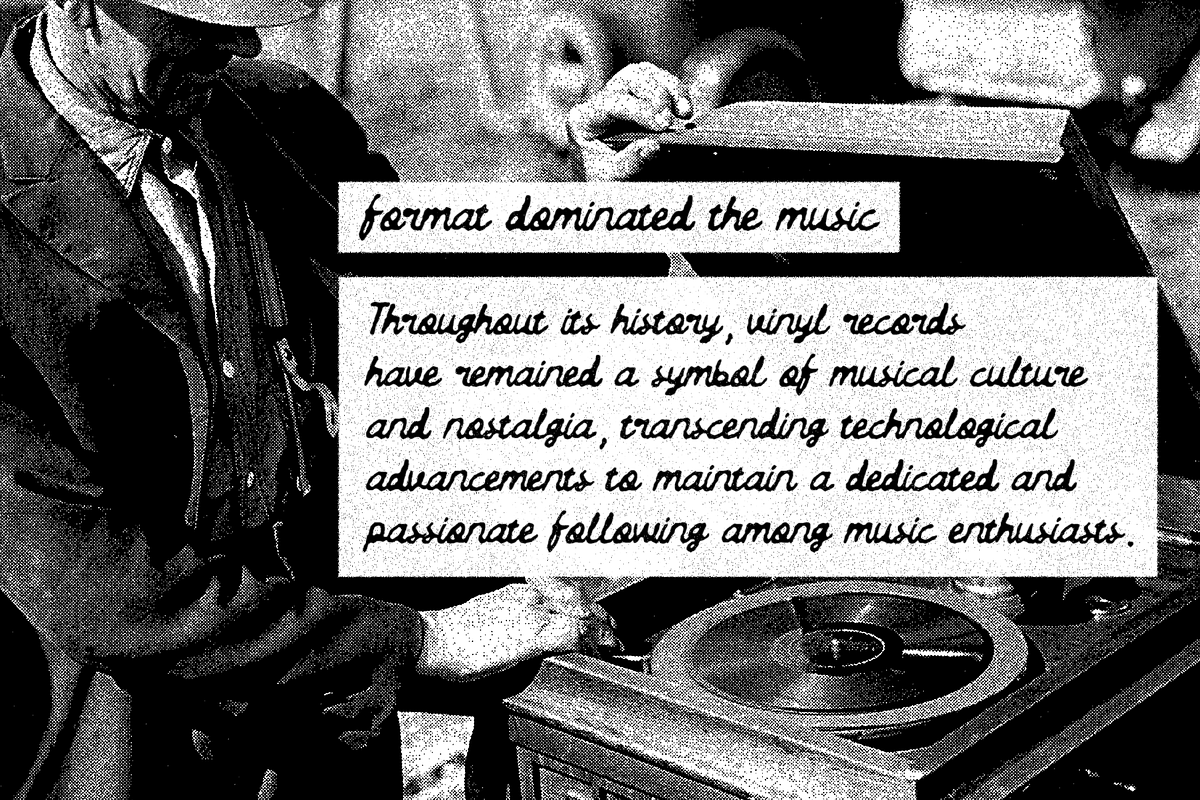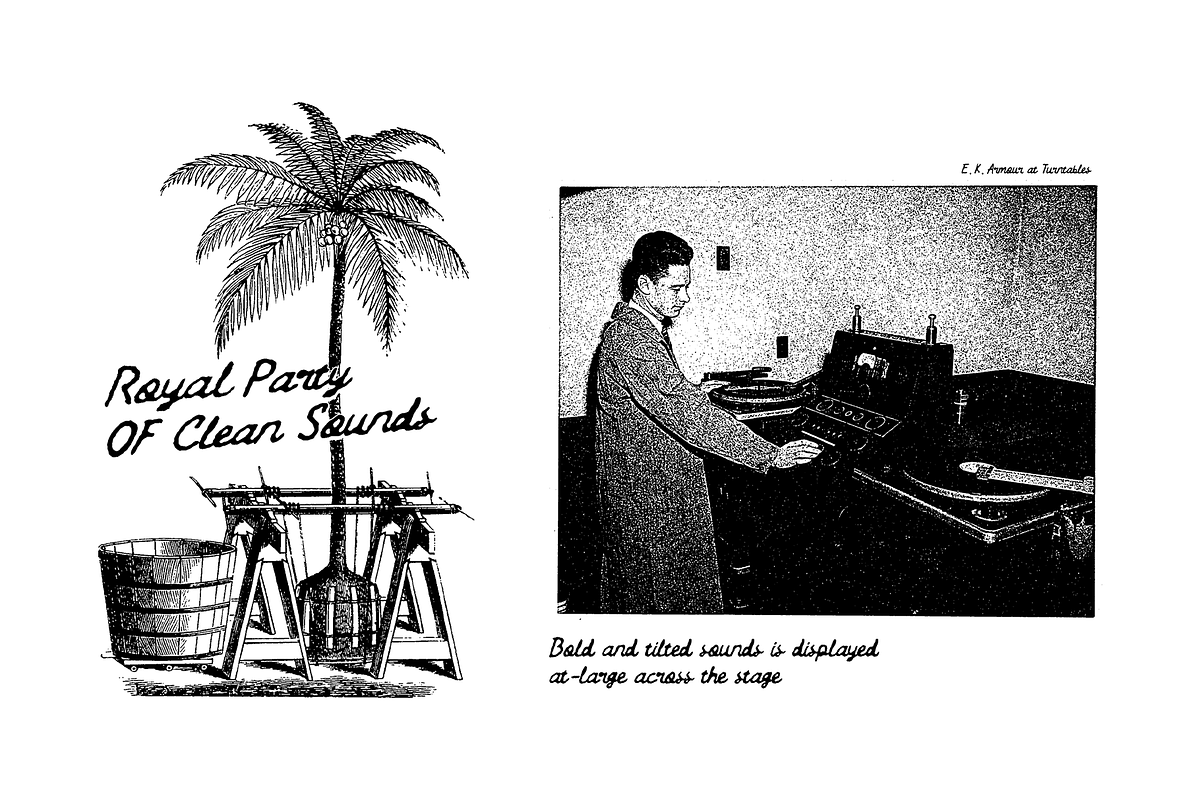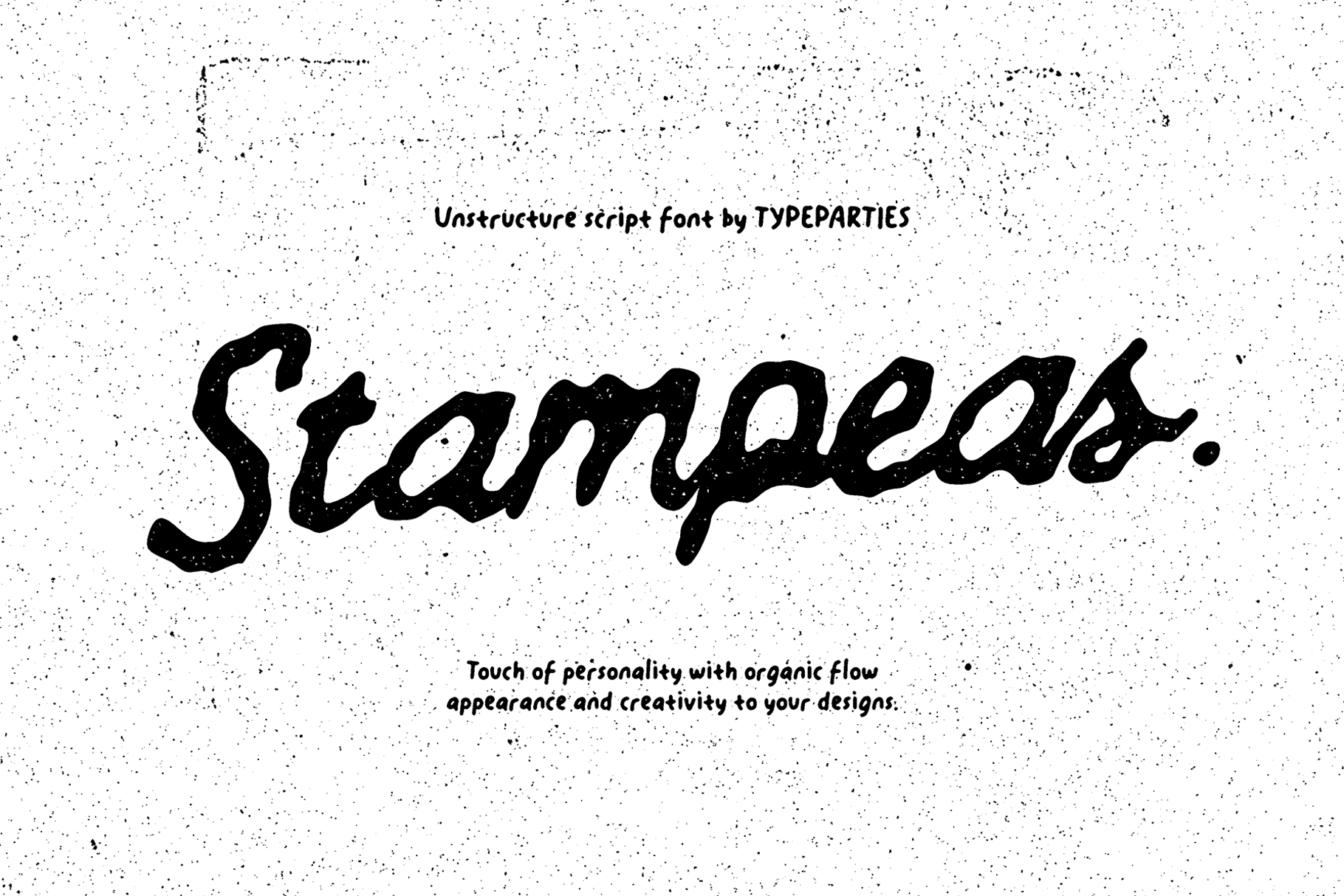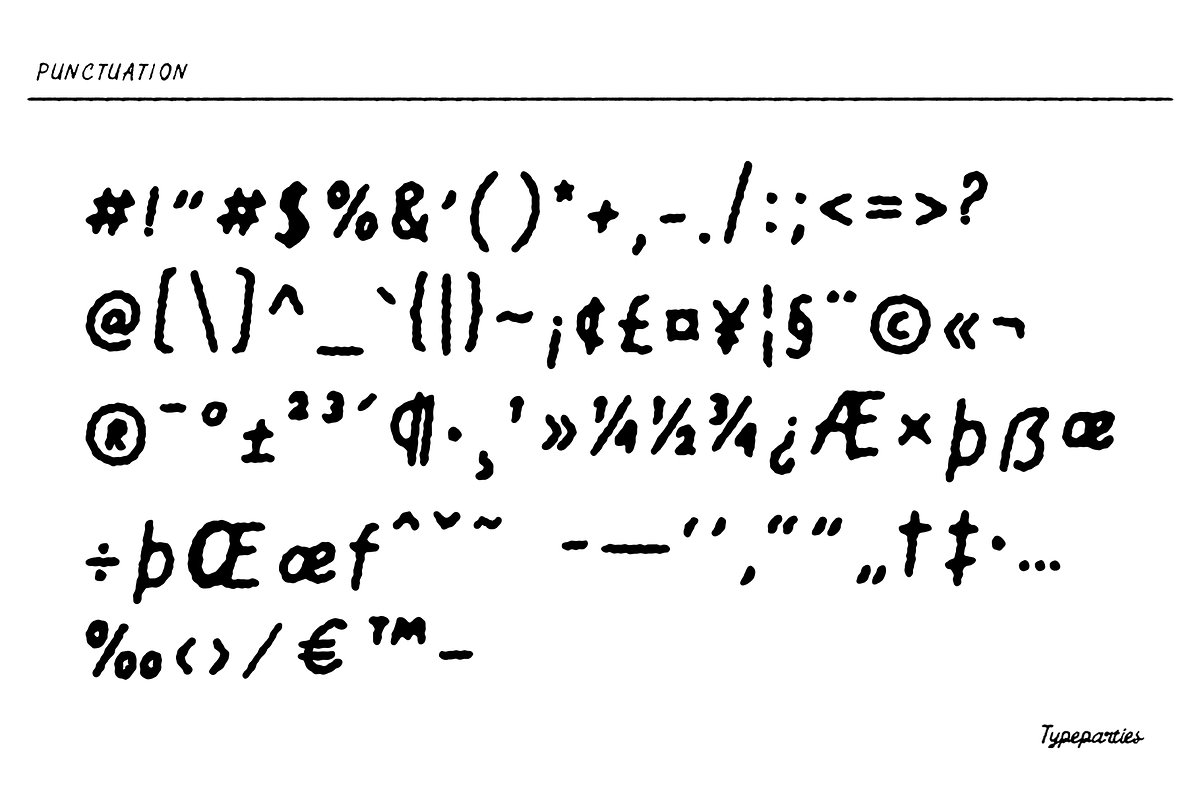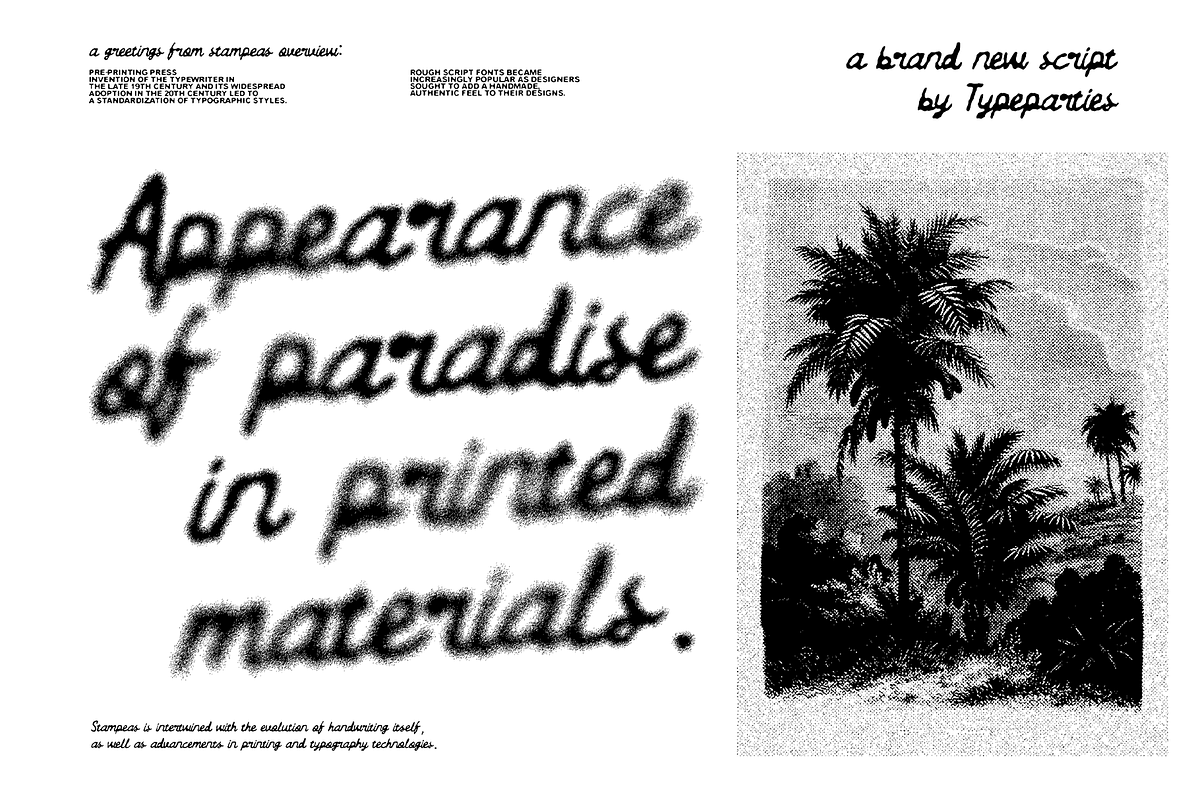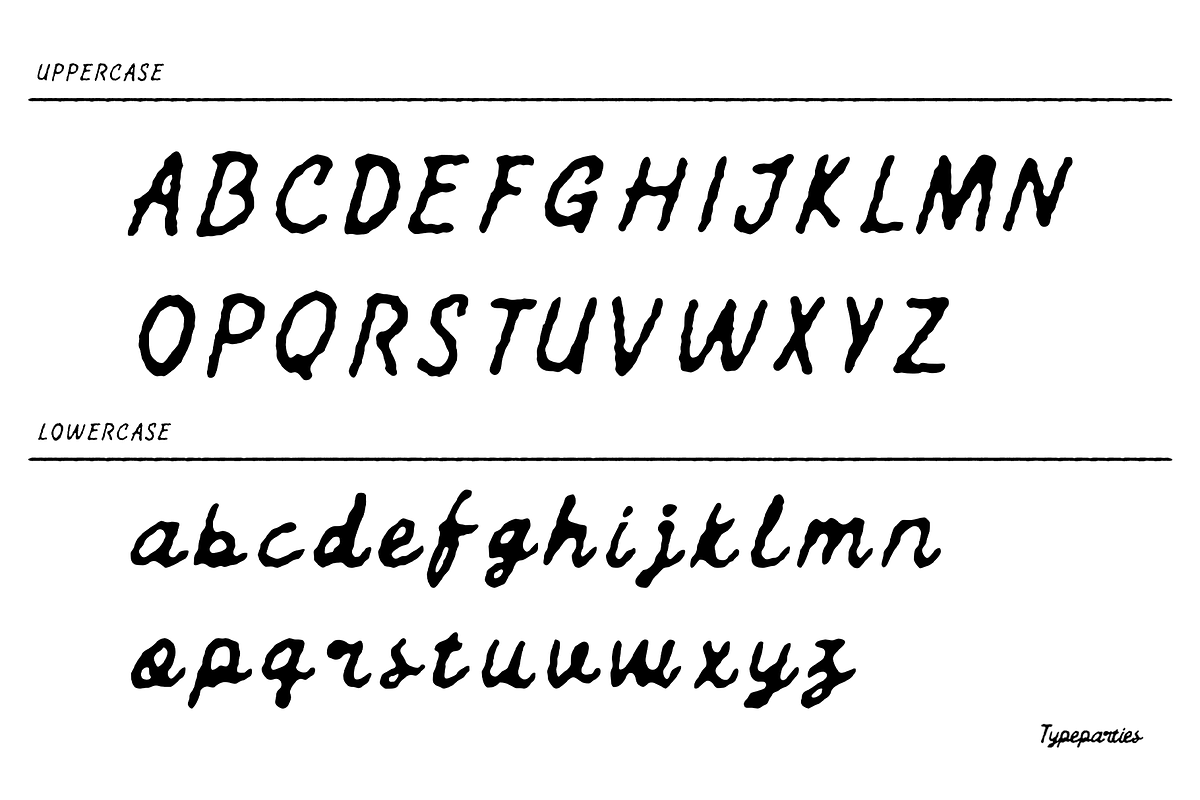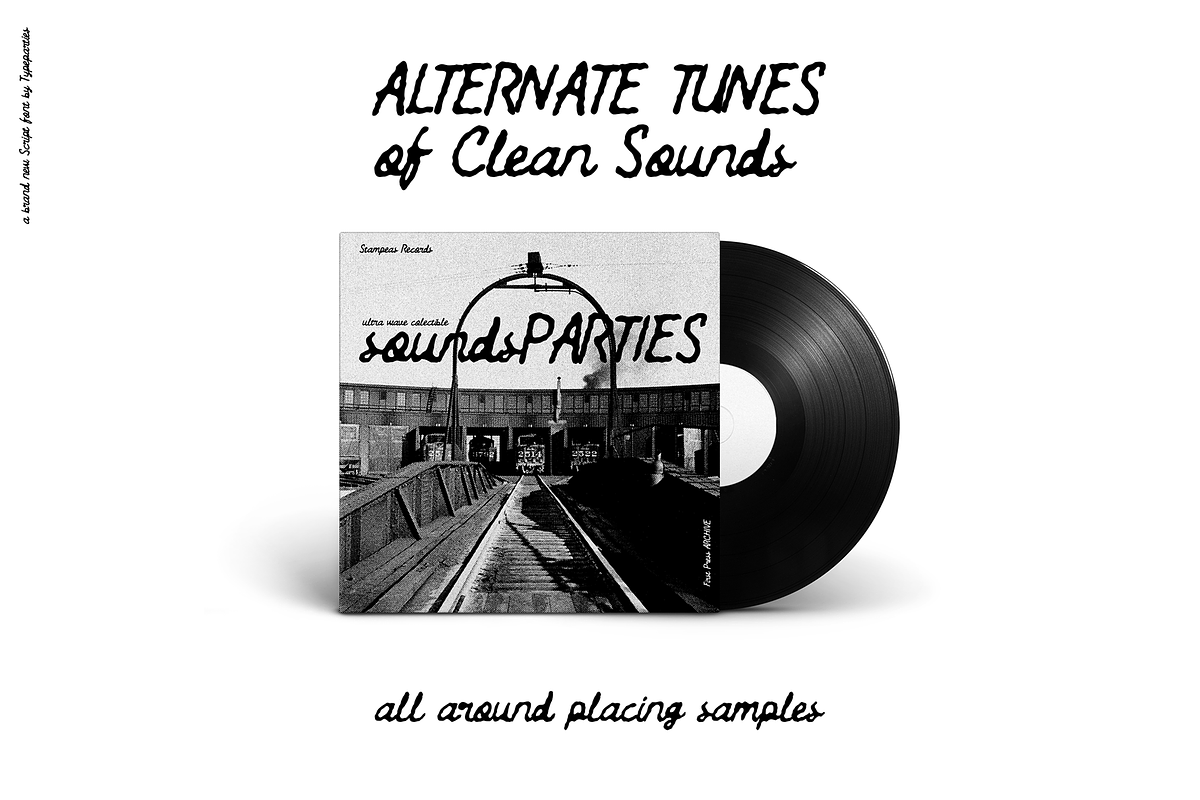
Stampeas Font
Characterized by irregular edges, varying stroke widths, and occasional splatters or smudges, a rough script font mimics the spontaneity of freehand writing or calligraphy. Its organic feel adds warmth and character to any design, lending a touch of nostalgia or authenticity.
A "Stampeas" font embodies a raw, handmade aesthetic, evoking the charm of imperfect brush strokes or ink pen lines. This typeface exudes a sense of authenticity and personality, as if each character were crafted by hand rather than generated digitally.